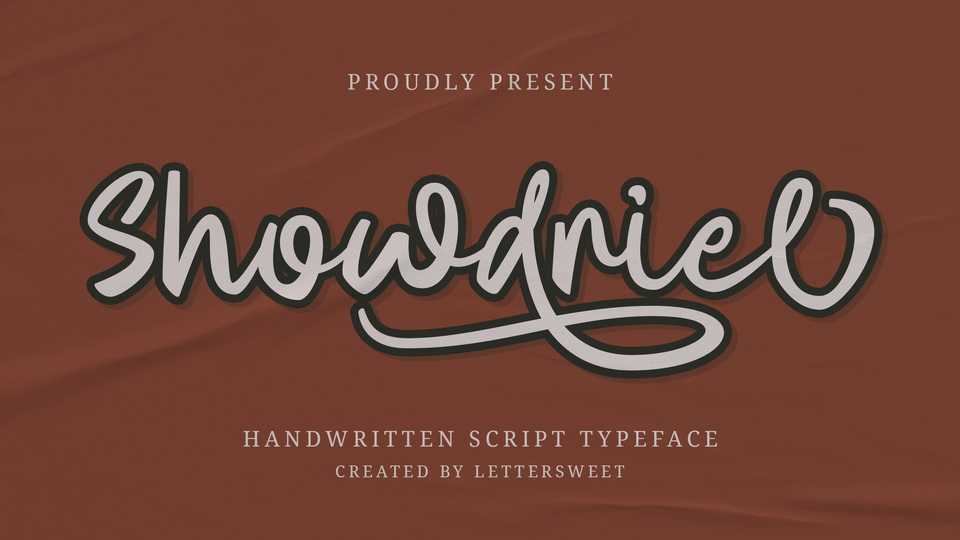
Download Showdriel font, a beautiful and romantic script typeface. Showdriel looks stunning on wedding invitations, thank you cards, quotes, greeting cards, logos, business cards, and every other design which needs a lovely handwritten touch.